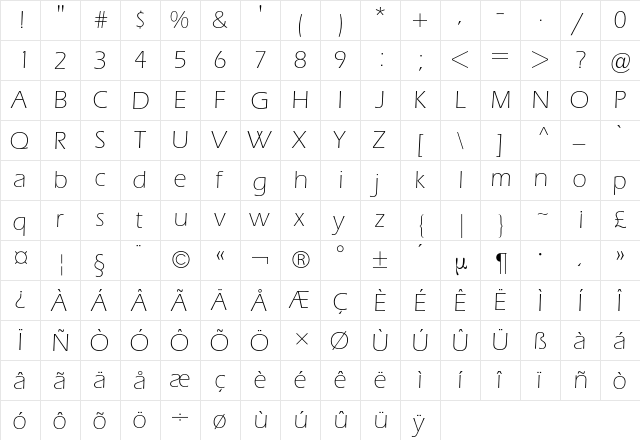
Eras BQ Regular
Design Context for Eras BQ Typeface
Eras BQ offers clean, dependable letterforms without strong stylistic allegiance, making it a practical choice for designers who need flexibility.
Pro Tip: Pair Eras BQ with a font of contrasting weight or personality to build a more expressive typographic hierarchy.